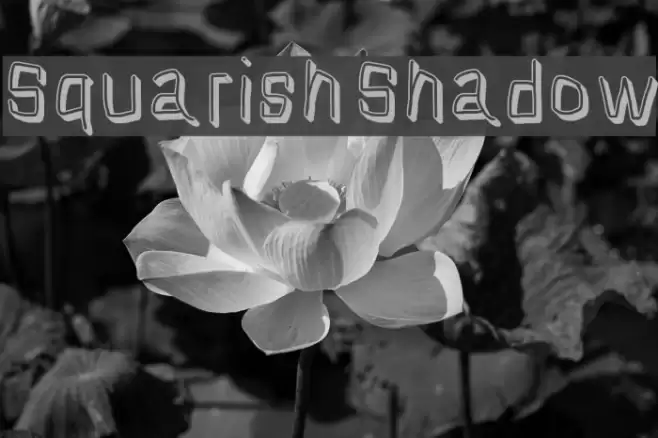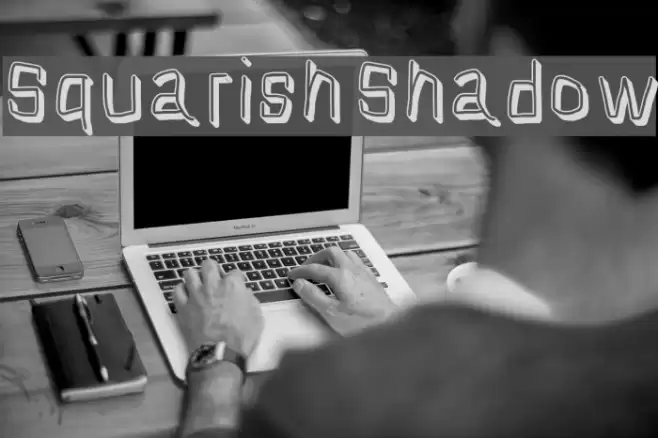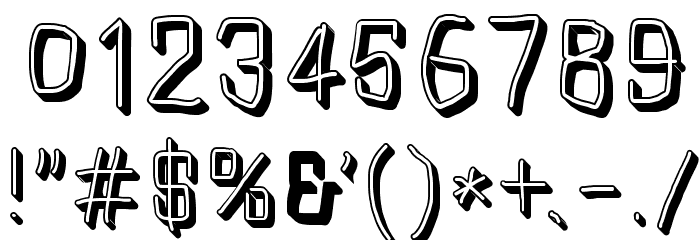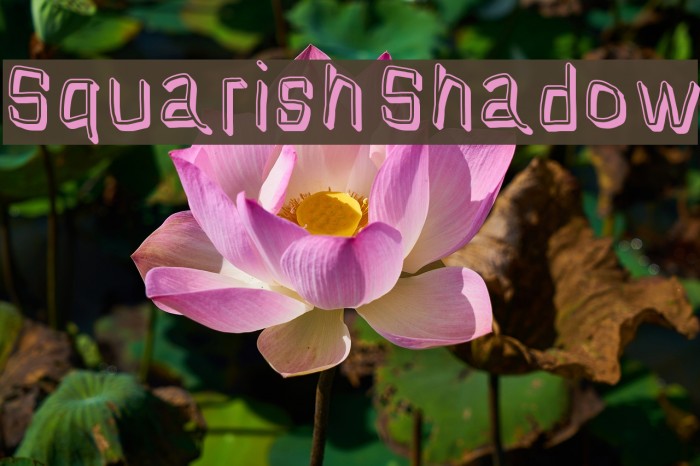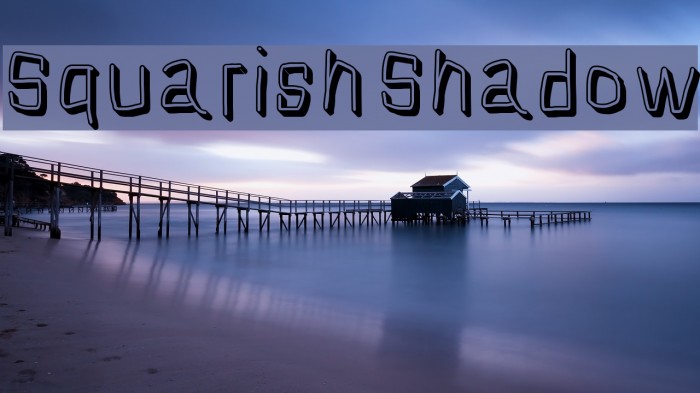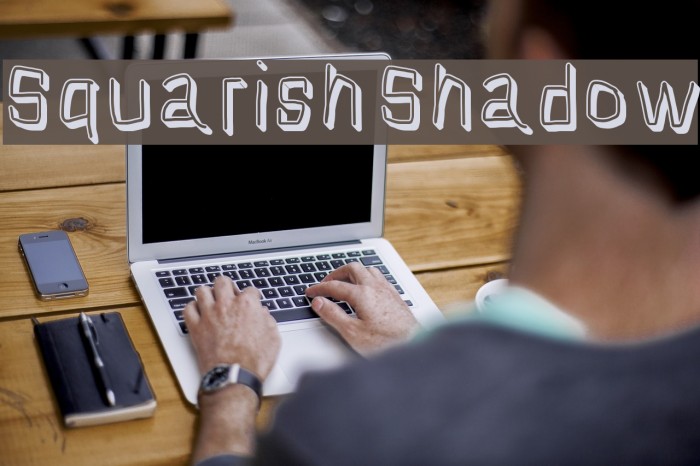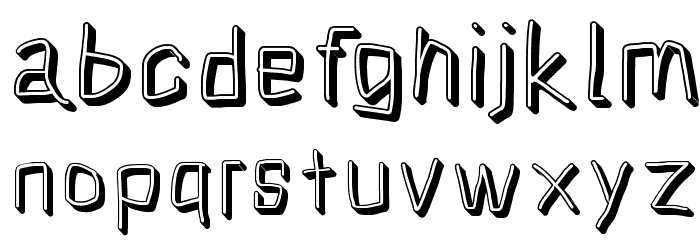
Squarish Shadow Font
Squarish Shadow Description
This font features a bold, geometric style with a distinct shadow effect that gives it a three-dimensional appearance. The characters are angular and have a hand-drawn quality, which adds a playful and dynamic feel. The uppercase and lowercase letters maintain a consistent design, with sharp edges and a slightly irregular form that enhances its unique character. The numbers and special characters follow the same design principles, ensuring a cohesive look across all elements. This font is ideal for projects that require a standout, artistic touch.
A bold, geometric font with a shadow effect and hand-drawn style from Uncategorized fonts.
- Proposed Projects: Ideal for posters, logos, and creative branding projects that require a bold and artistic touch.